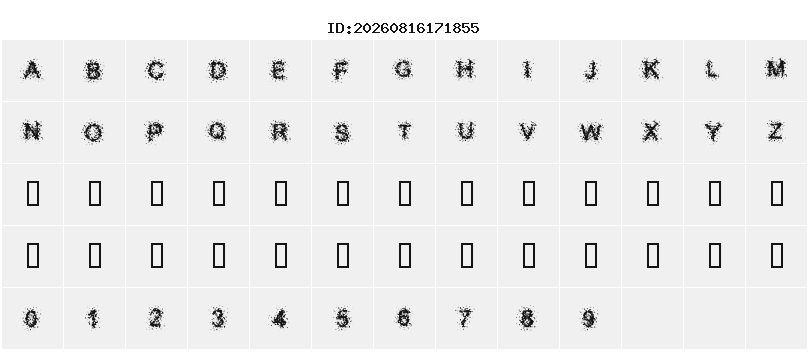
• Font Name: Splatter Caps
• Full Font Name: Splatter Caps
About Splatter Caps.ttf
Splatter Caps.ttf is a modern, elegant sans-serif font designed for ultimate readability and visual harmony. Perfect for branding, headlines, web design, and print materials.